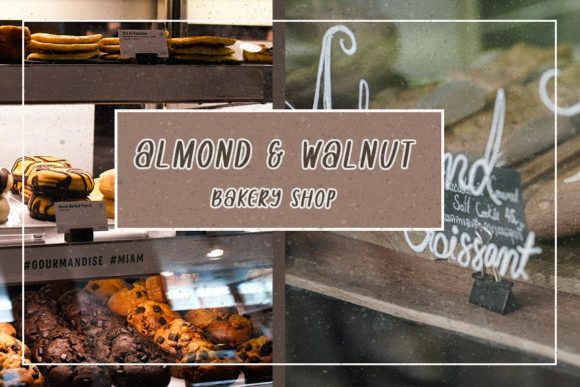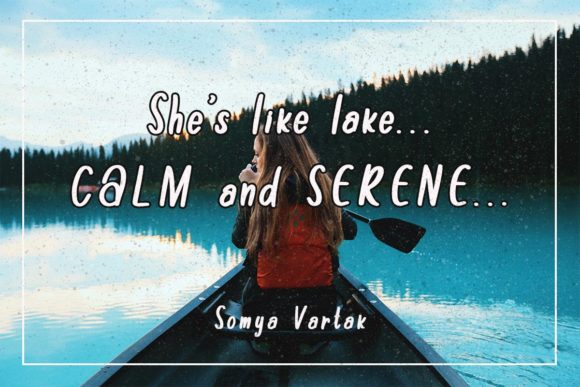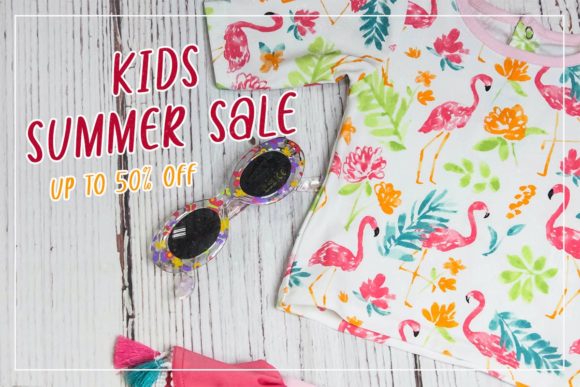
Introduction to Potato Peel Font
Potato Peel is a handwritten font.
It features a casual look and smooth edges It will look perfect in a wide range of projects, from quotes and logos, to branding and stationery.
Key Features of Potato Peel Font
Why Choose Potato Peel Font?
Potato Peel Font offers exceptional quality and versatility, making it a valuable addition to your design toolkit. Whether you’re creating for personal projects or commercial use, Potato Peel Font delivers professional results.